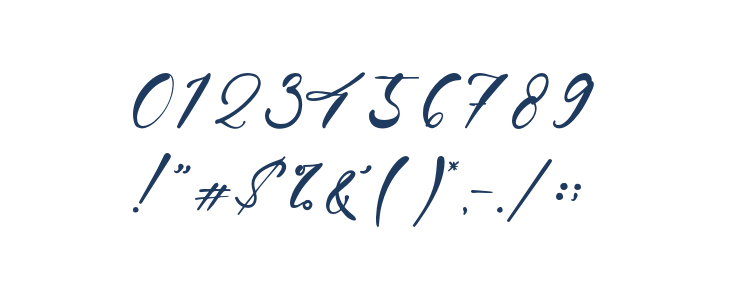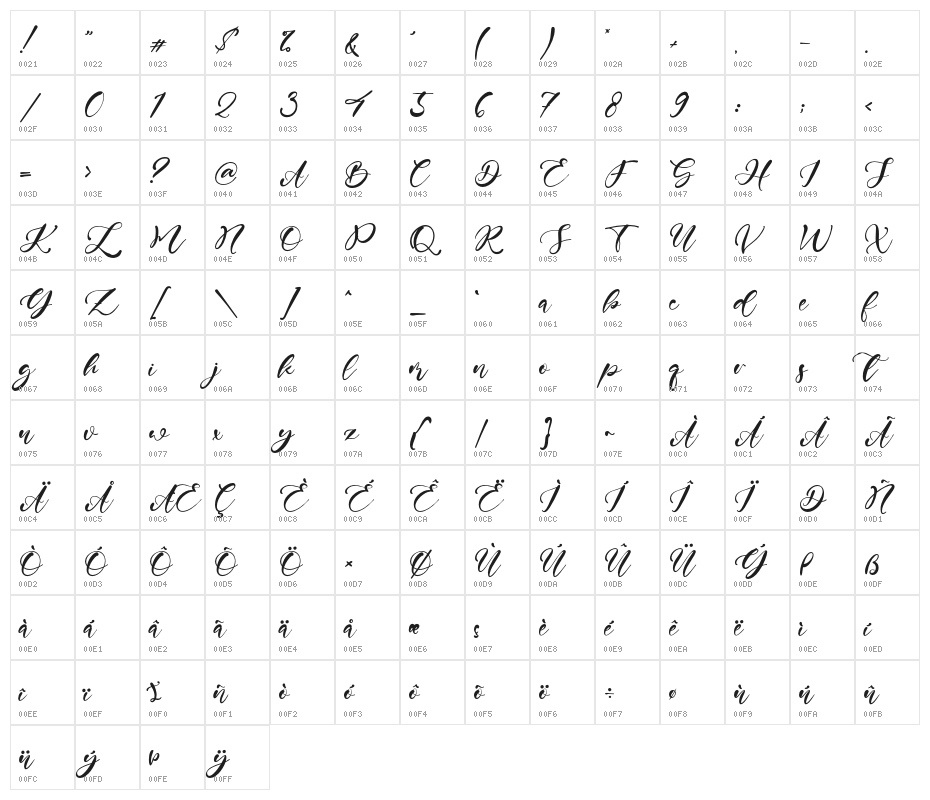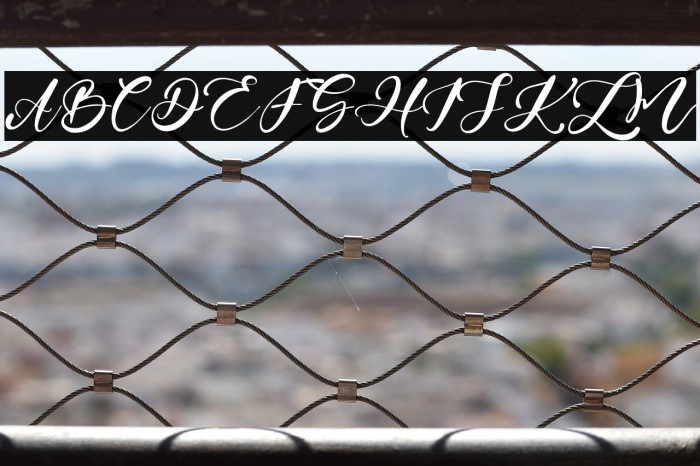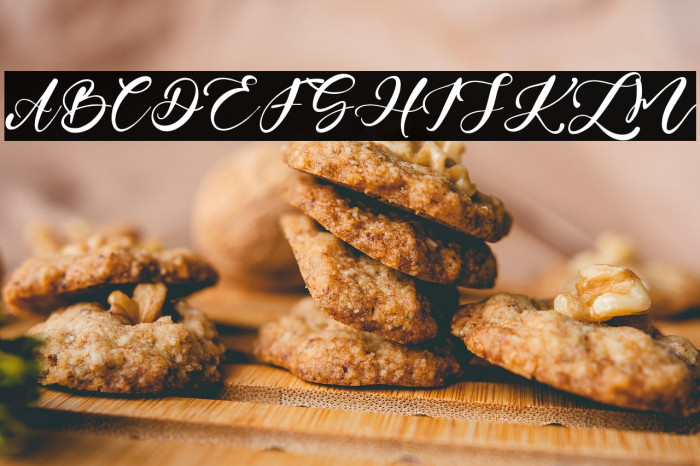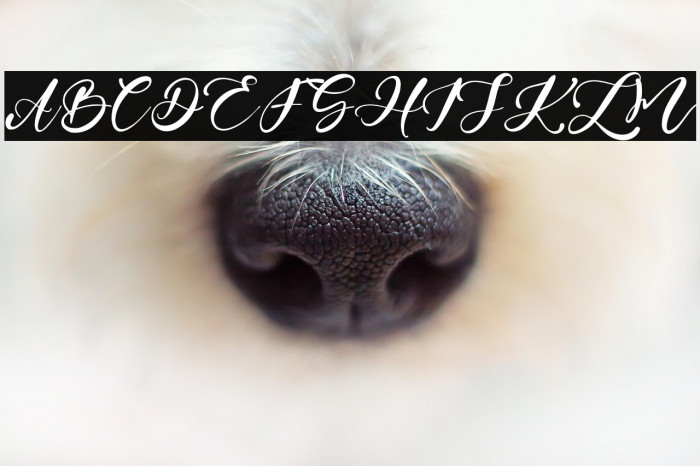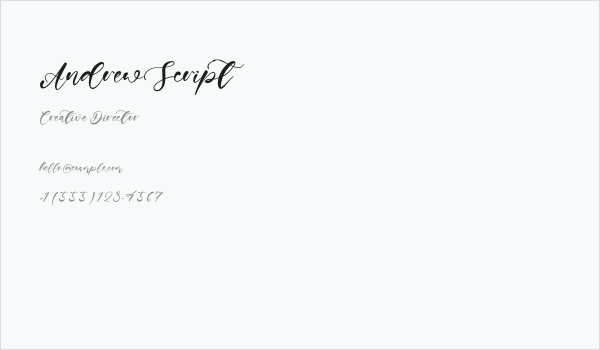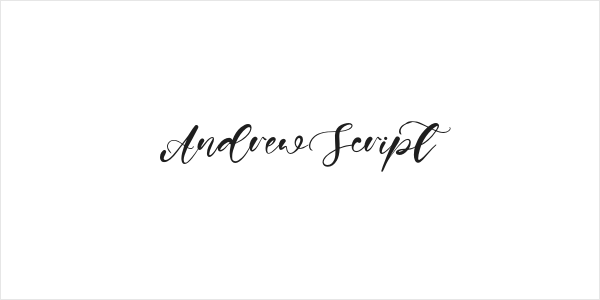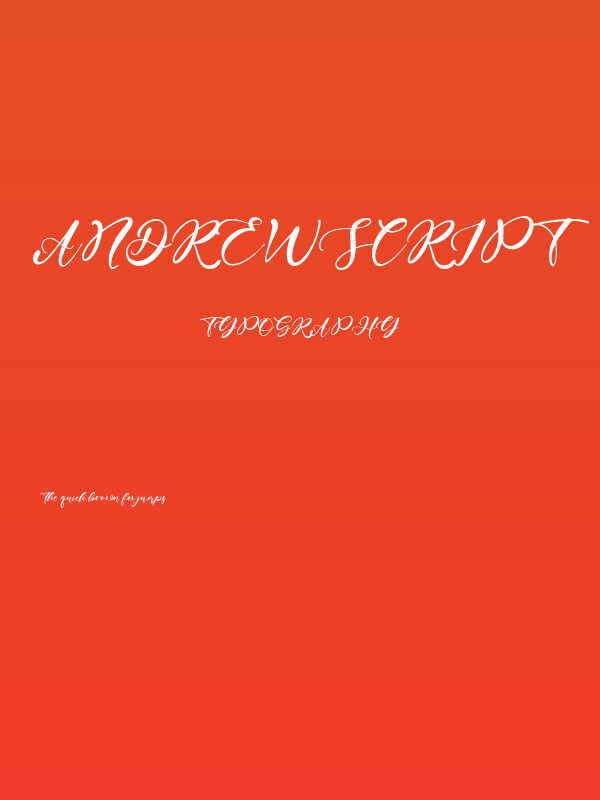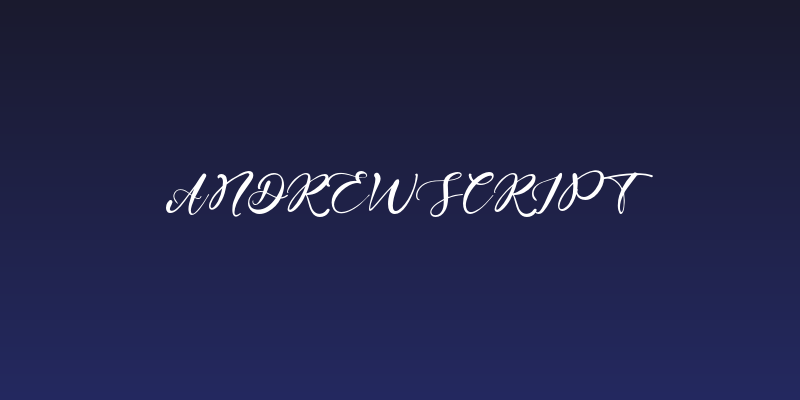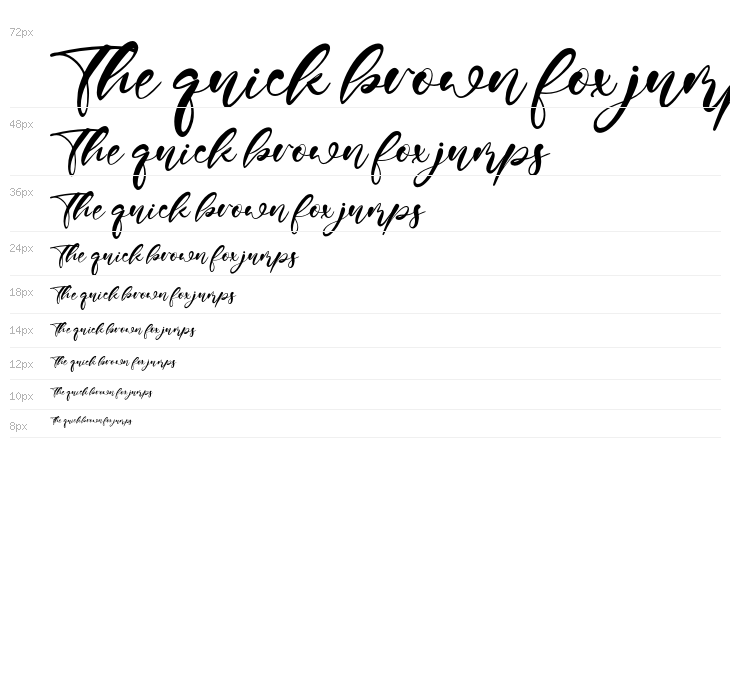
AndrewScript Font
AndrewScript Description
This elegant script font features fluid, cursive strokes that mimic the natural flow of handwriting. The uppercase letters are characterized by their sweeping, graceful lines, while the lowercase letters maintain a consistent rhythm with smooth connections. The numerals and special characters are designed with the same attention to detail, ensuring a cohesive look across all glyphs. The font's overall appearance is both sophisticated and approachable, making it suitable for a variety of design projects. Its balanced contrast in stroke thickness adds to its readability, while the moderate character spacing ensures clarity without sacrificing style.
Overall StyleElegant, Sophisticated
Use CaseInvitations, Branding, Packaging
Proposed ProjectsIdeal for wedding invitations, greeting cards, branding, and elegant packaging designs.